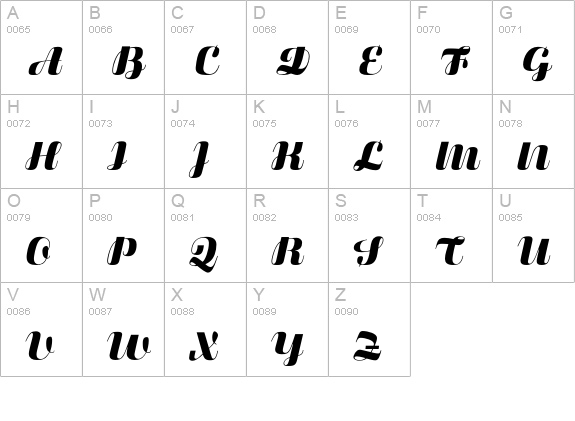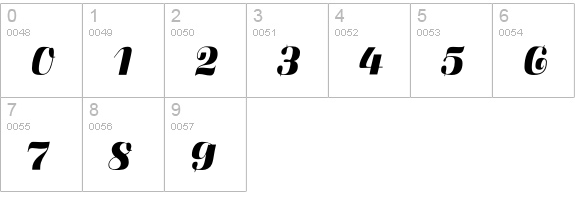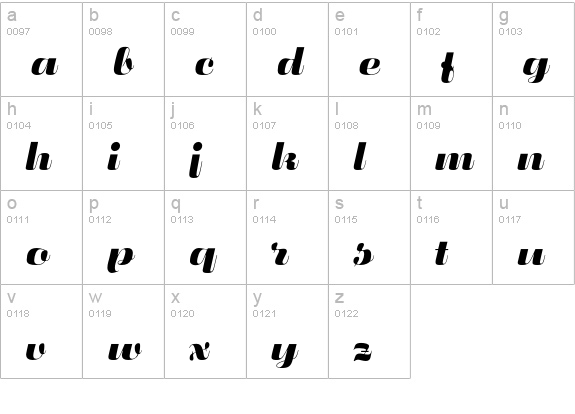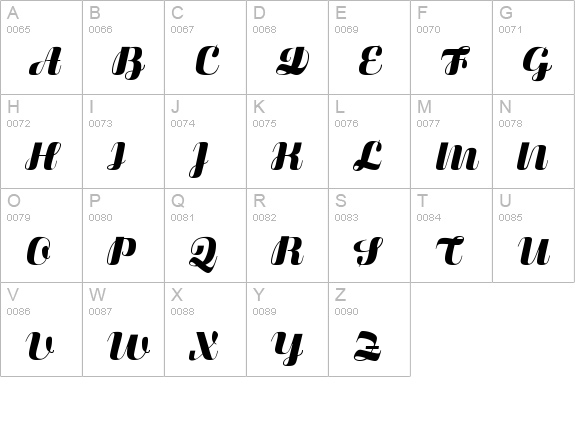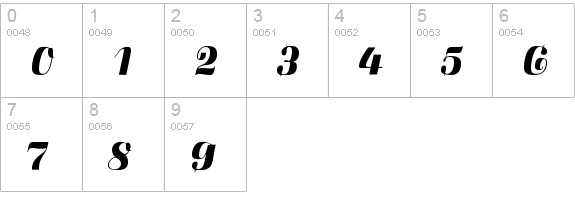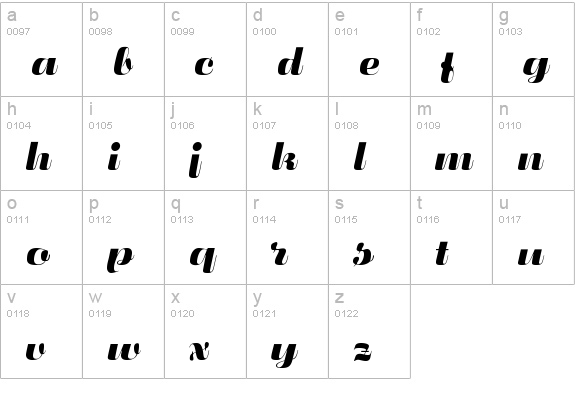
Fluidum Bold Std Font Details
Fluidum Bold Std is a strong, high-contrast variant in the Fluidum typeface family \xE2\x80\x94 well suited to headlines, attention-grabbing titles, and strong calls-to-action.
Fluidum Bold Std is a striking and modern typeface that exudes confidence and strength. With its bold and impactful design, this font is perfect for making a statement in any design project. The sharp lines and sleek curves of Fluidum Bold Std give it a dynamic and energetic feel, making it ideal for headlines, posters, and other bold design elements. What makes Fluidum Bold Std even more appealing is that it is available for free download at FontsMarket.com. This means that you can easily access this high-quality font without any cost, making it a valuable addition to your font collection. Whether you're a professional designer looking for a powerful display font or a hobbyist seeking to elevate your projects, Fluidum Bold Std is a fantastic choice that won't break the bank. Download it today and unleash the bold potential of your designs with Fluidum Bold Std.